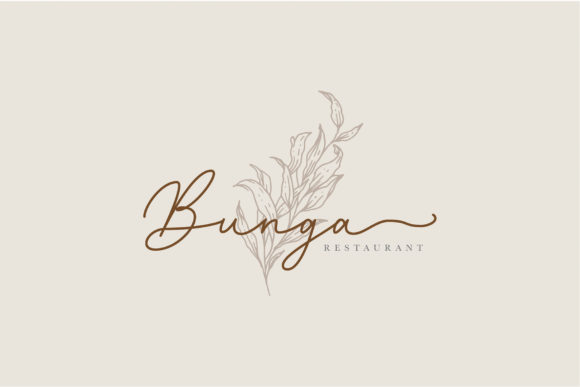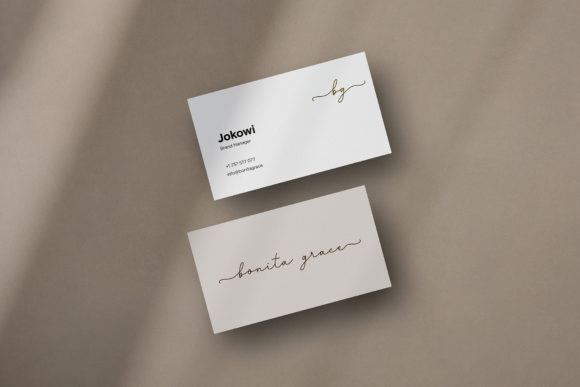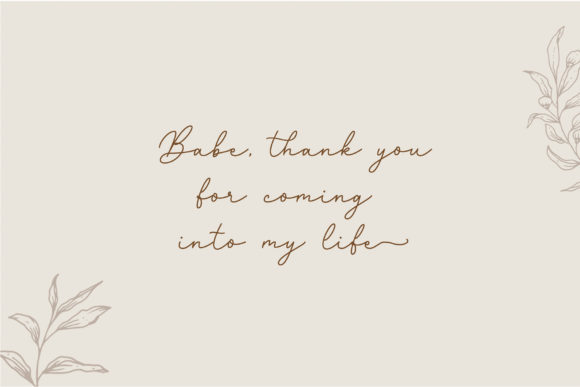
Introduction to Gatkins Font
Gatkins is a beautiful and romantic scrip font.
This stunning font is a stylish homage to classic calligraphy It features a varying baseline, smooth lines, gorgeous glyphs and stunning alternates.